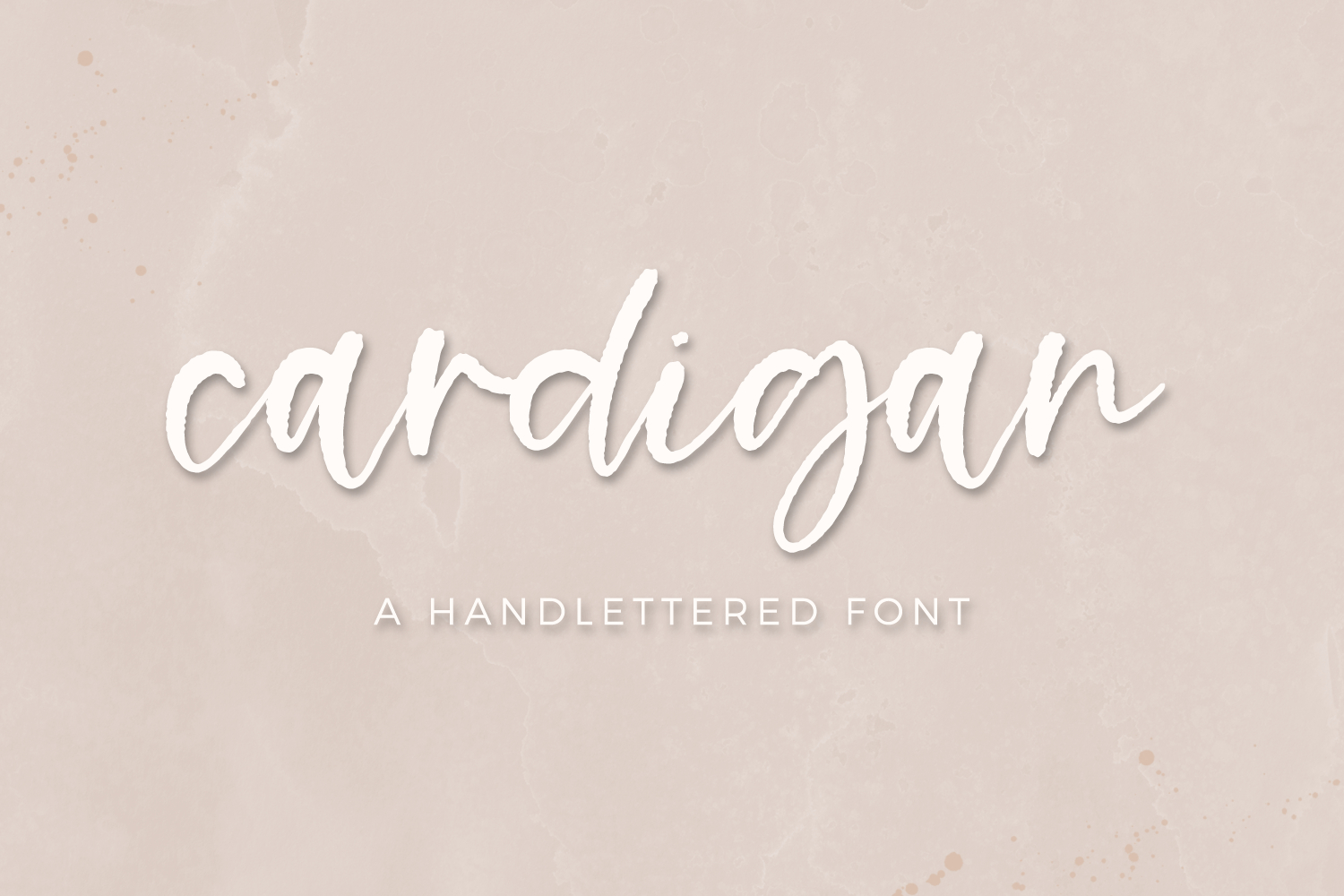
Introducing Cardigan Script, a bouncy textured font. Cardigan is handwritten & casual.
Cardigan Script is best for:
- print design, like greeting cards
Cardigan Script includes:
- 3 alternate characters - g, j, y
- 2 ligatures - mm, oo